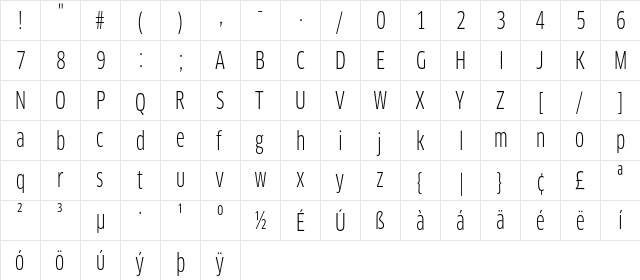
ClanPro-CondBook Font Preview
ClanPro-CondBook ClanPro-CondBook
ClanPro-CondBook Font Details
| Style | ClanPro-CondBook |
| Foundry | Lukasz Dziedzic |
| Designer | Lukasz Dziedzic |
Design Context for ClanPro-CondBook Typeface
ClanPro-CondBook takes a measured approach to typography — its balanced proportions and neutral character make it a reliable workhorse for both digital and print work. Its narrow stance lets it pack a punch even in space-constrained designs.